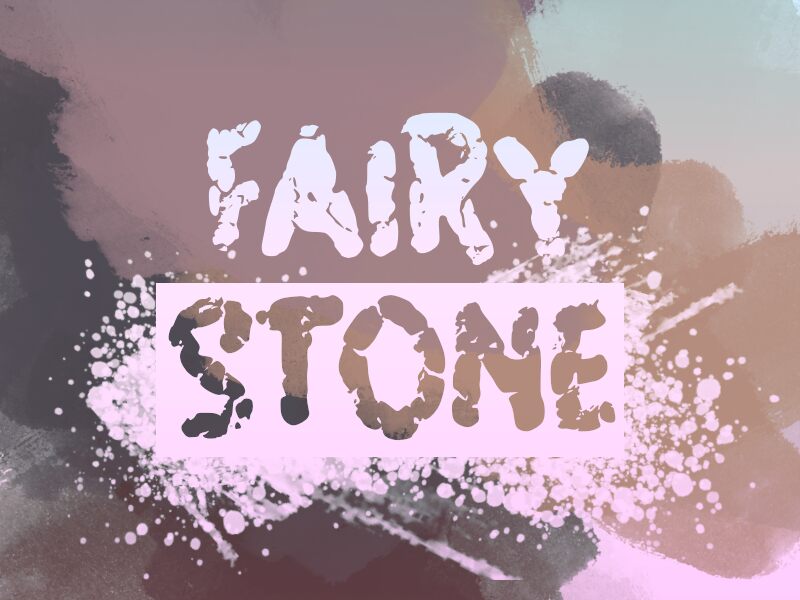
FAIRY STONE
Fairy Stone, a captivating display font crafted by designer wep, boldly defies convention. With its distorted, irregular strokes, this typeface exudes a raw, untamed energy, evoking a sense of mysticism and intrigue. The uneven, almost jagged edges lend the characters a striking, primal quality, hinting at a hidden power beneath the surface.
This font's unique aesthetic lends itself exceptionally well to bold, attention-grabbing applications, such as headlines, logos, and branding materials. Its unapologetic style would make it a standout choice for projects seeking to convey a sense of unconventionality, whether in the realms of fantasy, horror, or experimental design. Fairy Stone's bold presence and inherent versatility make it a compelling option for designers seeking to push the boundaries of traditional typography and create truly memorable visual experiences.